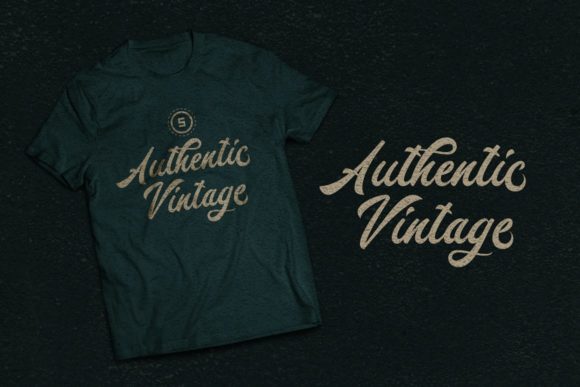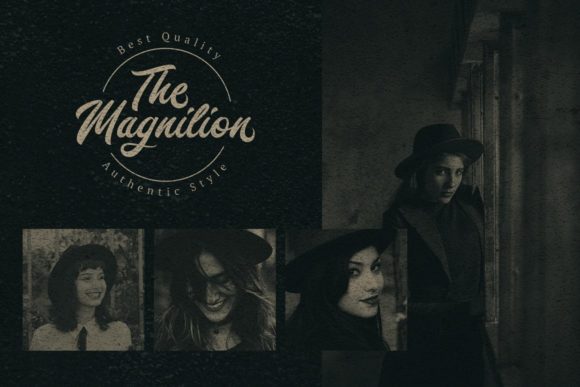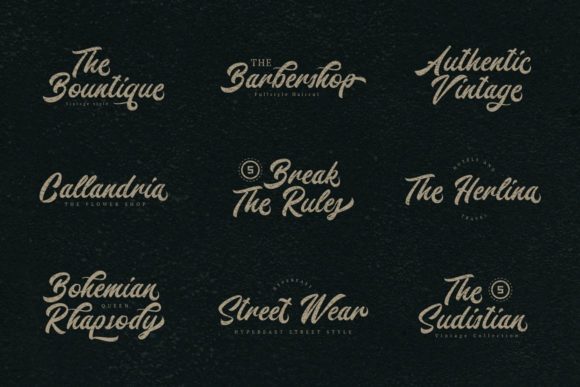
About Salmah Font
Salmah is a beautiful and flowing paint brushed handwritten font that effortlessly combines elegance, modernity, and a touch of artistic flair. With its classy and refined look, this font is perfect for various design purposes, including logos, branding, invitations, stationery, wedding designs, social media posts, and more.
The flowing and dynamic brush strokes of Salmah give it a unique and captivating appearance. Its stylish and graceful letterforms exude a sense of sophistication, making it an excellent choice for creating a memorable visual identity. Whether you’re designing a professional logo, crafting elegant invitations, curating stylish stationery, or creating engaging social media posts, Salmah will add a touch of elegance and modernity to your designs.
This font’s paint brushed texture adds a sense of artistic charm, creating a visually appealing look that stands out. The versatility of Salmah allows it to adapt to various design styles, from contemporary to romantic, making it a versatile and valuable asset in your creative projects.
Embrace the beautiful and flowing nature of Salmah and incorporate it confidently into your projects. You will be amazed at how it enhances your designs and brings a classy, elegant, and modern touch to every aspect.